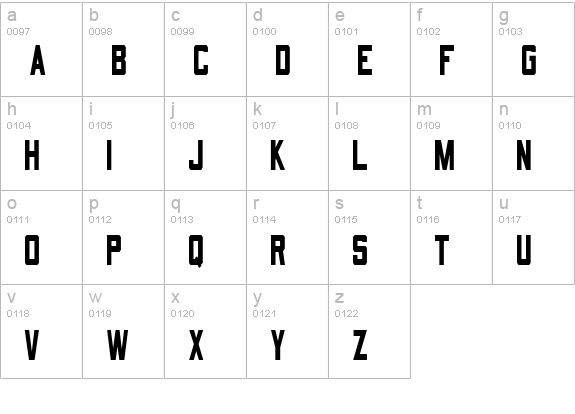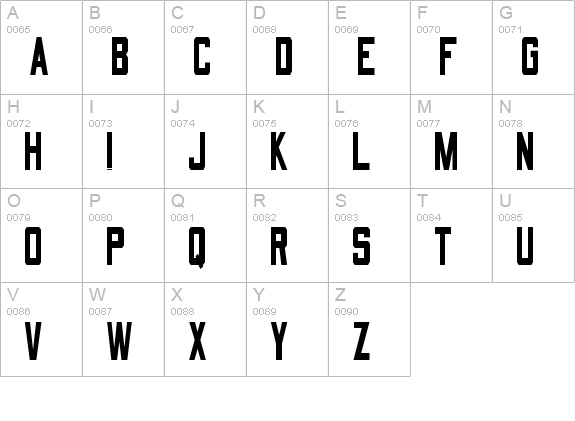
QuarterbackCondensed Font Details
QuarterbackCondensed is a sleek and modern font that is perfect for adding a touch of sophistication to any design project. With its condensed letterforms and clean lines, this font exudes elegance and professionalism. It is the ideal choice for headlines, titles, and logos, as it commands attention and leaves a lasting impression. The versatility of QuarterbackCondensed is truly remarkable, allowing it to seamlessly adapt to various design styles and themes. Whether you are creating a sleek corporate presentation or a trendy fashion magazine, this font will elevate your project to new heights. One of the best features of QuarterbackCondensed is that it is free to download at FontsMarket.com. This means that you can easily access this high-quality font without breaking the bank. The fact that it is freely available only adds to its appeal, as it allows designers of all levels to access a professional font without any financial burden. The attention to detail in QuarterbackCondensed is evident in every letterform. Each character is meticulously crafted to ensure perfect balance and legibility, even at smaller sizes. The result is a font that is not only visually stunning but also highly functional. Whether you are a seasoned designer or just starting out, QuarterbackCondensed is a font that you can rely on. Its clean and modern aesthetic, coupled with its availability for free download, make it an essential addition to any font library. So why wait? Head over to FontsMarket.com and grab your copy of QuarterbackCondensed today!